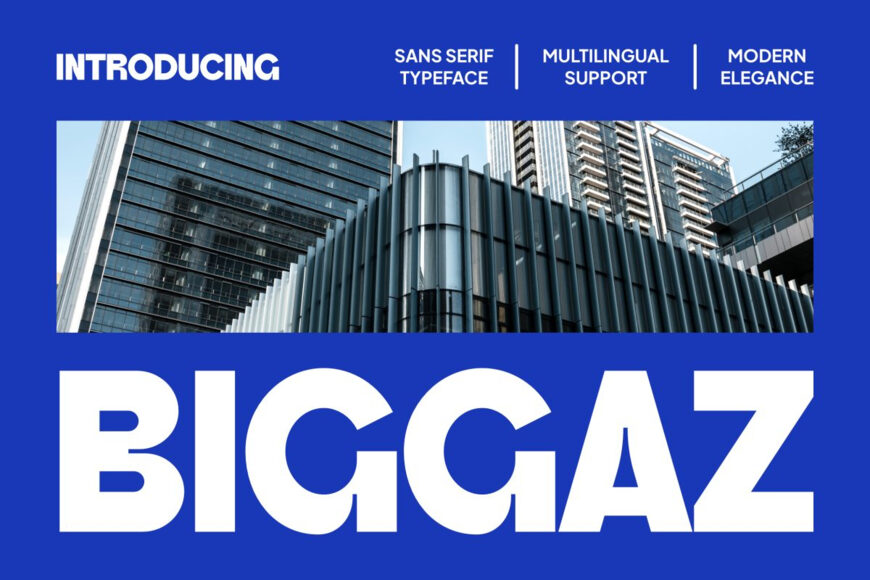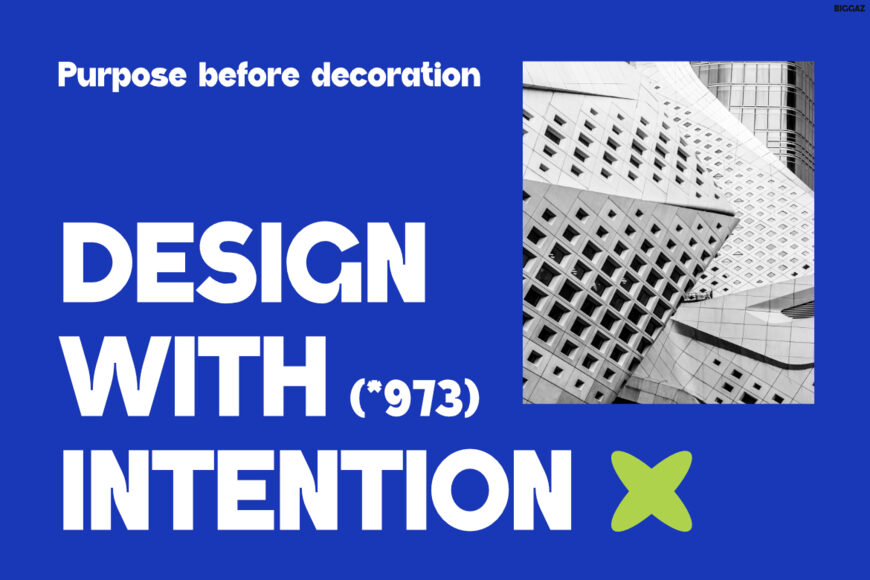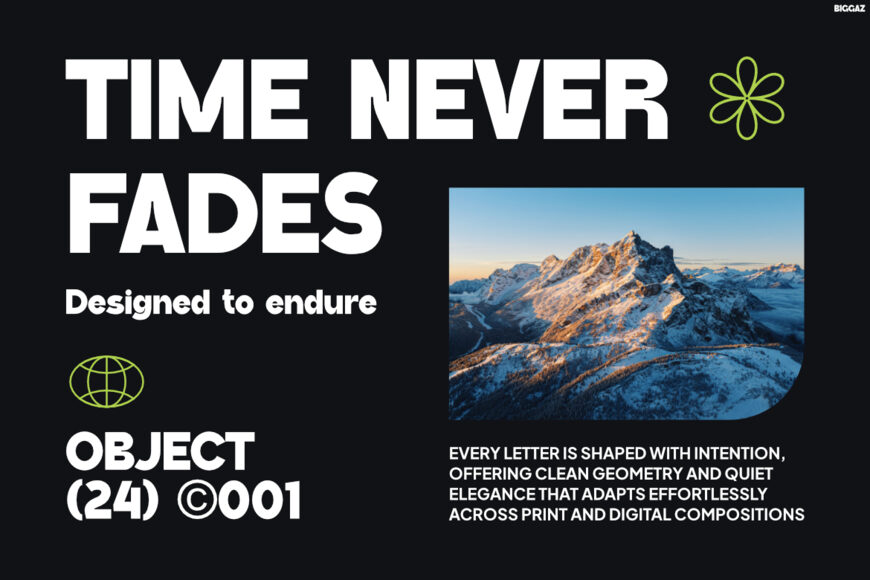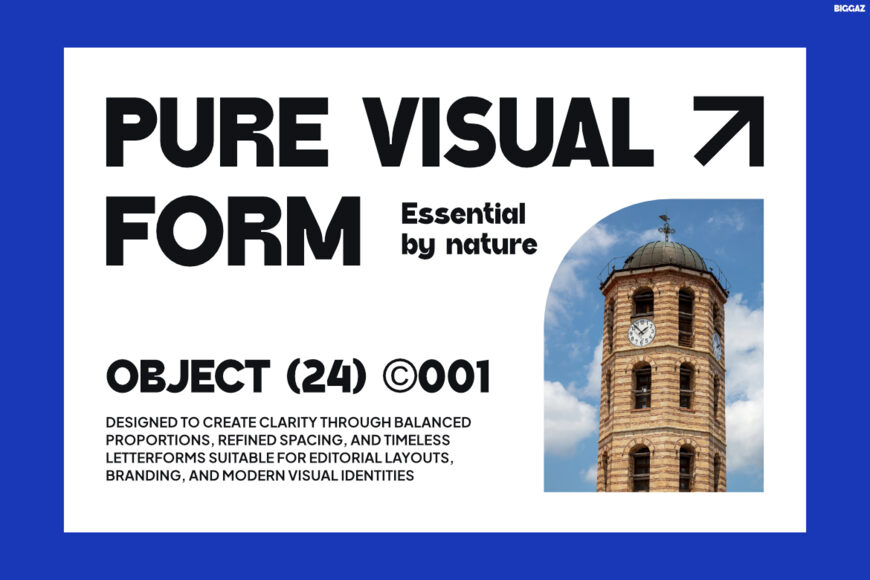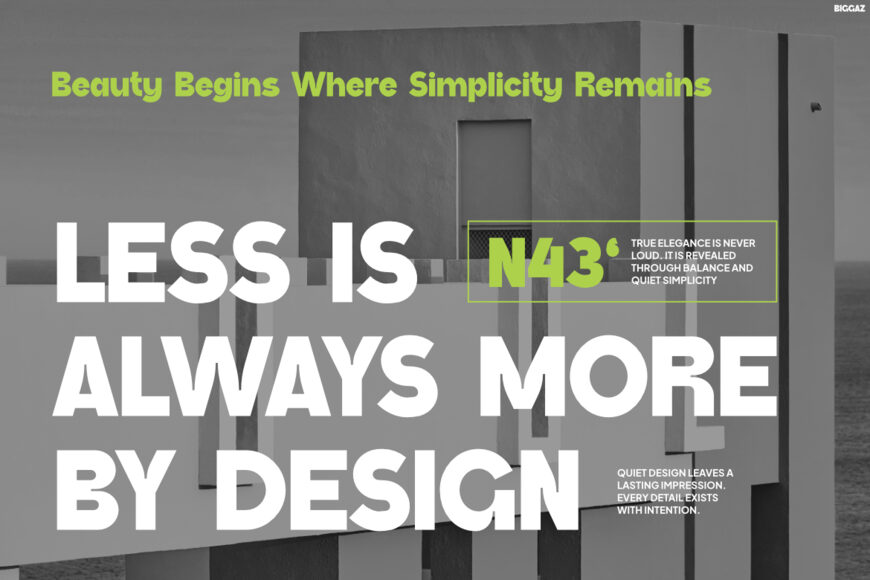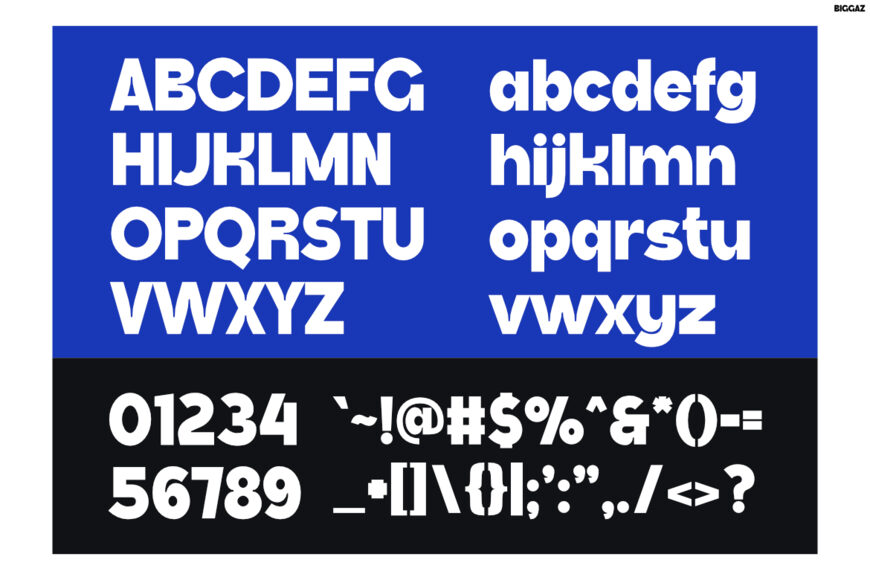
Biggaz is a bold geometric display font created for brands that want to make a strong first impression. Built with clean lines, solid proportions, and contemporary letterforms, it delivers a confident visual style that feels modern, professional, and highly versatile. Its bold structure creates maximum impact while maintaining outstanding readability. As a result, every headline looks sharper, stronger, and more memorable across both digital and print media.